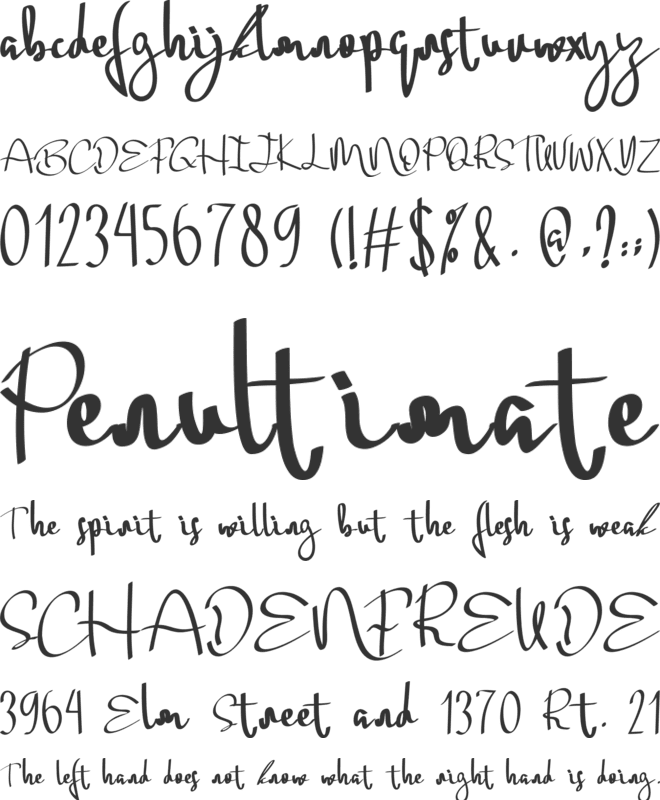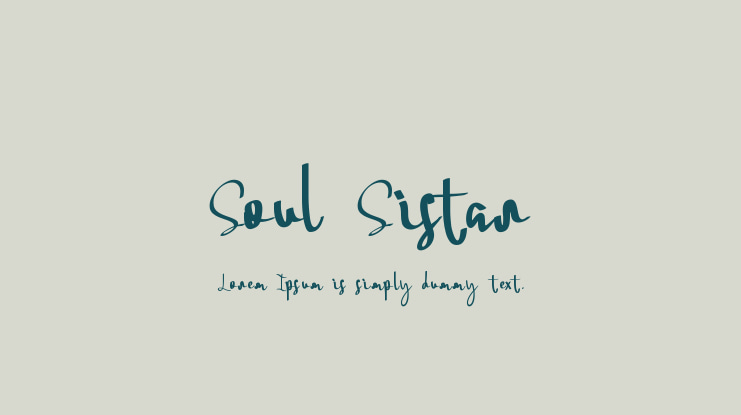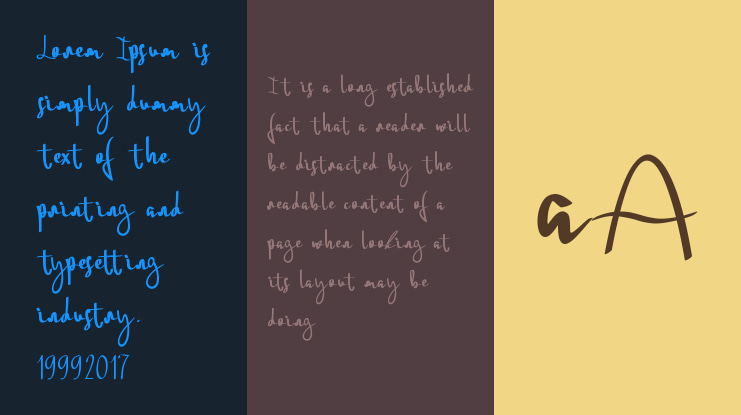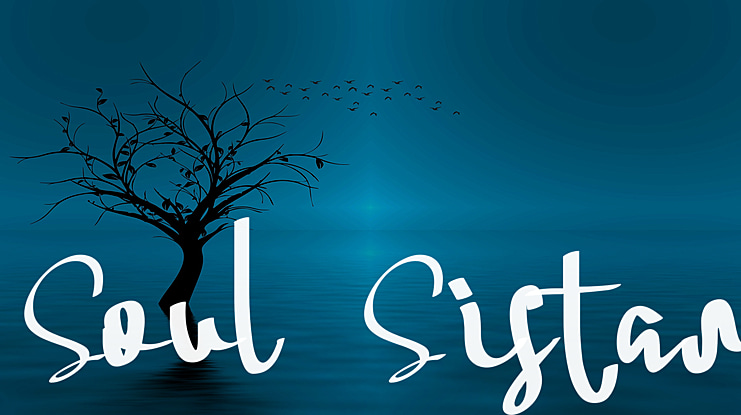
Soul Sistar Font
Introducing the Soul Sistar, a stylish romantic sistarhood handwritten with signature style. This beautiful script font offers your personal touch to your latest art project with elegant, classy sistarhood bond and modern look.
Soul Sistar offers gorgeous typographic will perfect for many different project such as logos & branding, invitation, stationery, wedding designs, social media posts, advertisements, product packaging, product designs, label, photography, watermark, special events or anything that need handwriting taste.